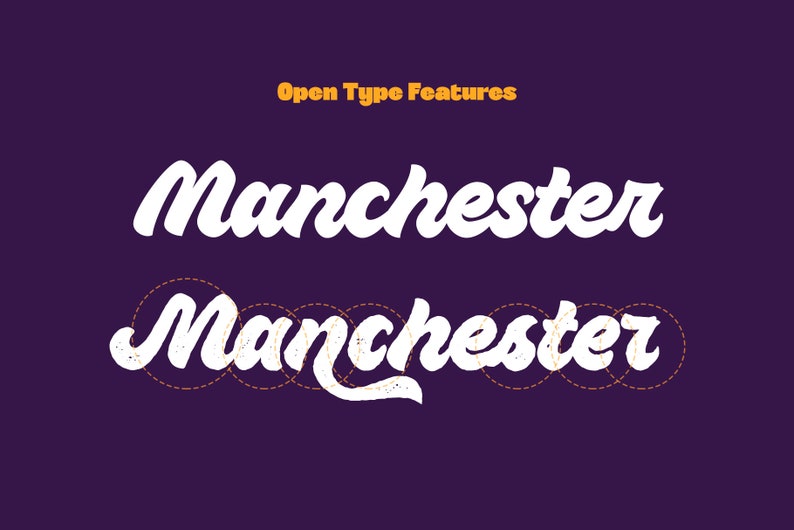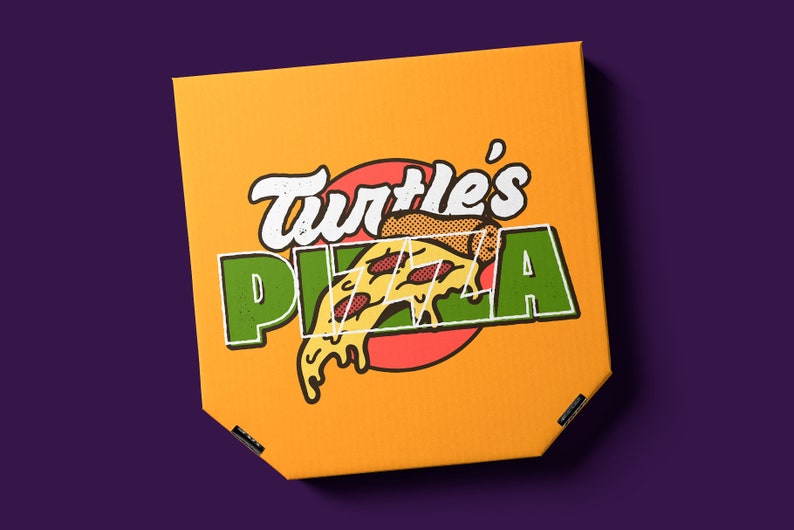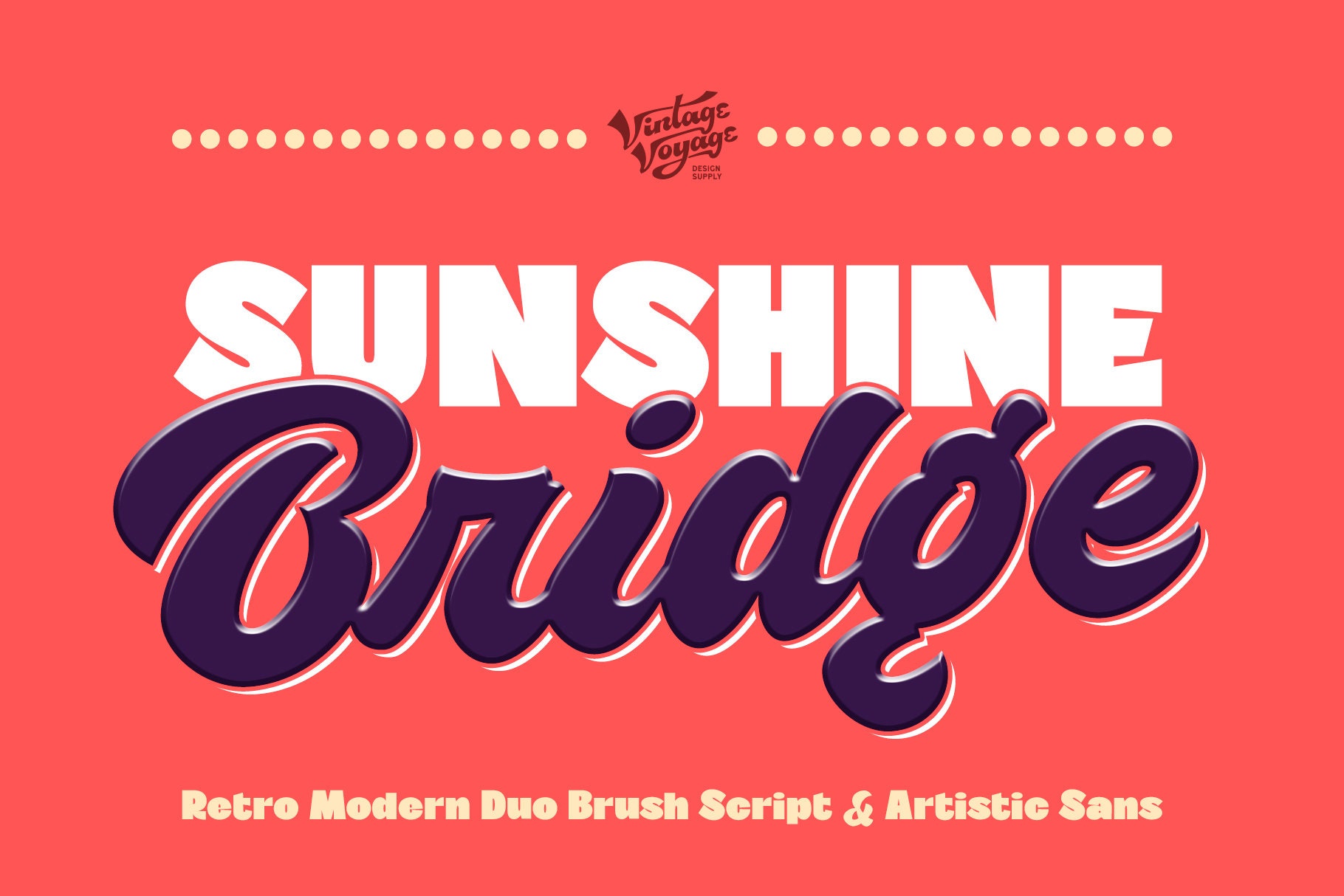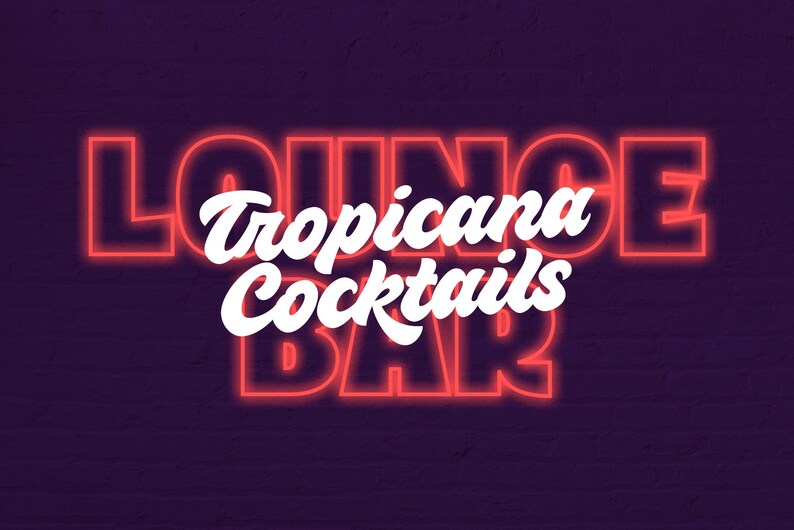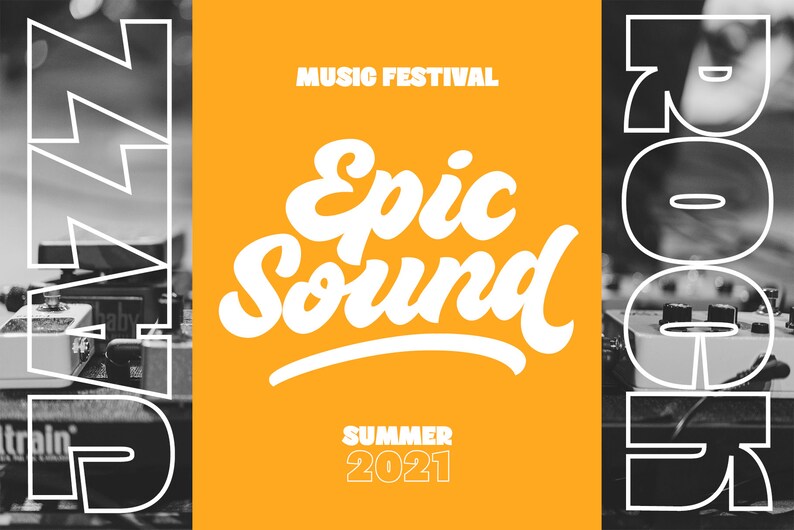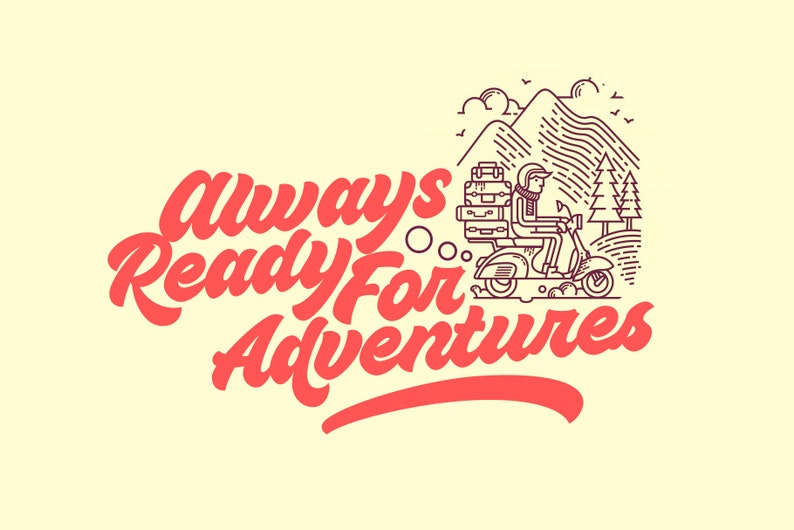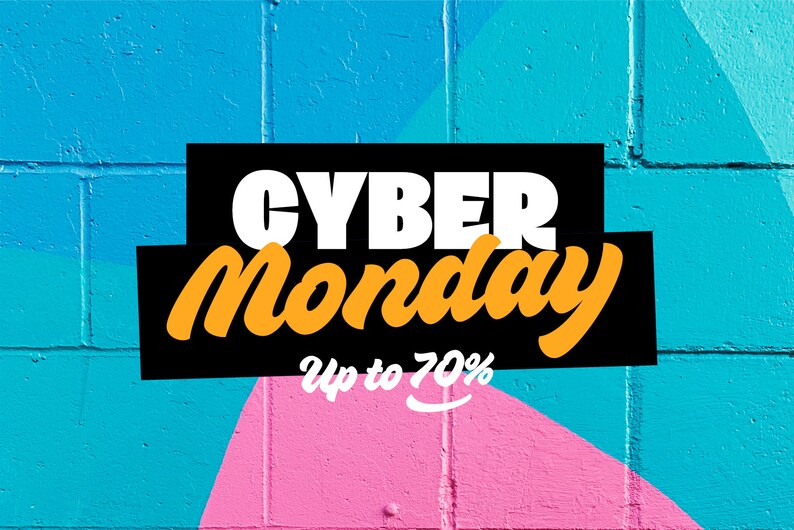
Sunshine Bridge Logo Font Vintage Font Retro Font Bold,Introduce you a Sunshine Bridge – retro modern font duo,Retro brush Script with artistic modern bold sans serif,They complement each other perfectly,You can use Sans as main and Script as additional,or vice versa,This duo gives you a modern look with vintage mood,So,you can use it both as in,Introduce you a Sunshine Bridge – retro modern font duo,Retro brush Script with artistic modern bold sans serif,They complement each other perfectly,You can use Sans as main and Script as additional,or vice versa,This duo gives you a modern look with vintage mood,So,you can use it both as in vintage-look projects - Beer bar or Brewery logo etc,or as Modern magazine headline or any modern print,A lot of Open Type Features in Script as Swashes and Alternates gives you a little more hand-touch look,- Clean and Pressed versions,- Well Kerned,- Multilingual,- Open Type Features,- Modern / Vintage look,- WebFont files